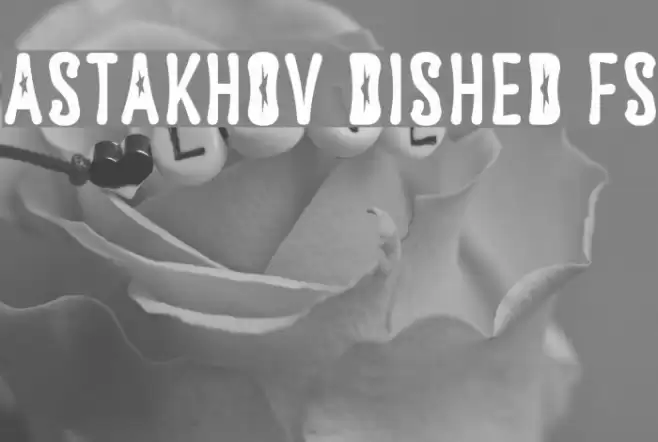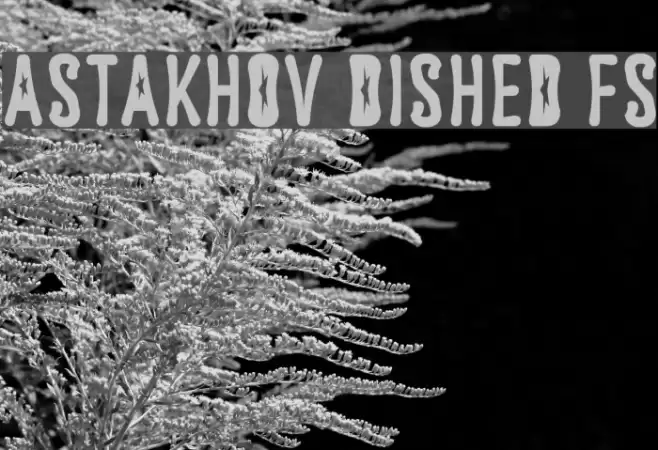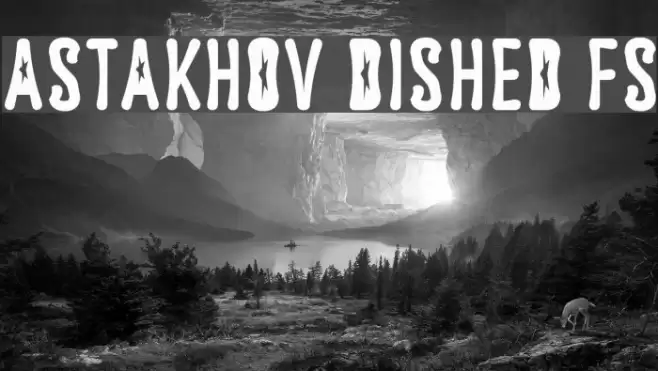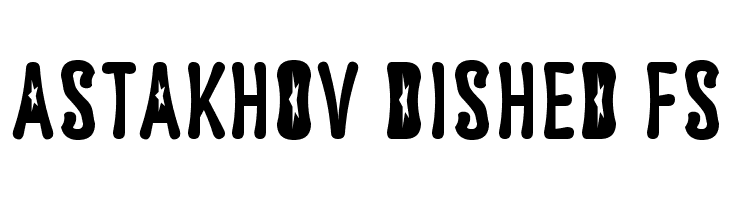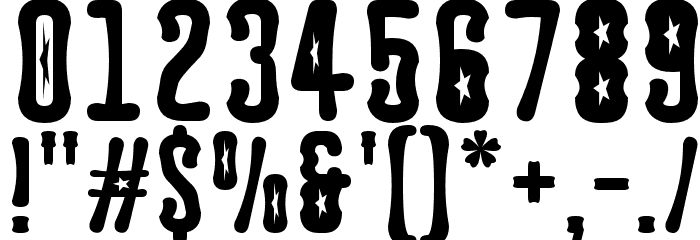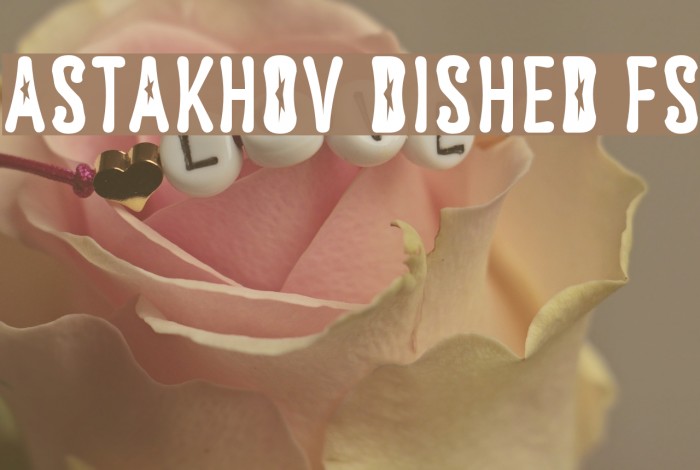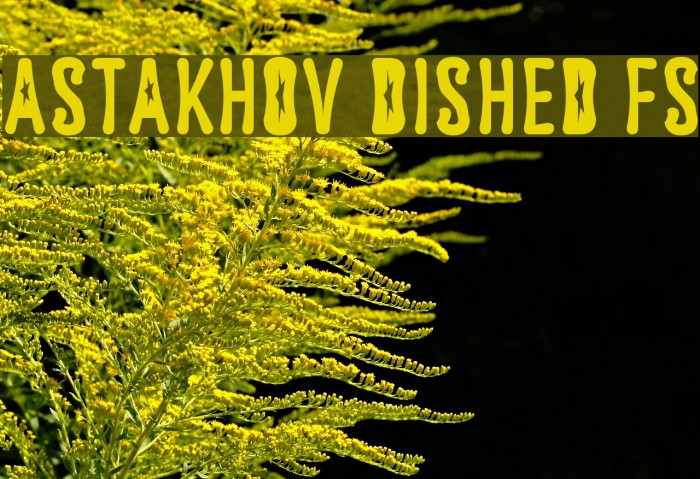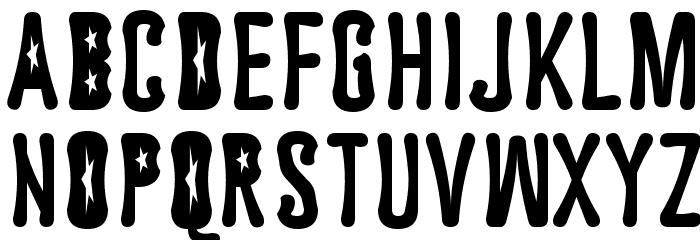
Astakhov Dished FS Font
Astakhov Dished FS Description
This font features a bold, playful design with a unique, irregular shape that gives it a dynamic and energetic feel. Each character is crafted with a distinct silhouette, incorporating star-like cutouts that add a whimsical touch. The letters are thick and robust, making them highly visible and impactful. The numbers and special characters follow the same stylistic approach, ensuring consistency across all elements. This font's distinctive style makes it ideal for creative and eye-catching designs.
A bold, playful font with star-like cutouts and dynamic shapes from Uncategorized fonts.
- Proposed Projects: Ideal for posters, children's books, party invitations, and branding projects that require a fun and lively aesthetic.
- Overall Style: Playful, Whimsical